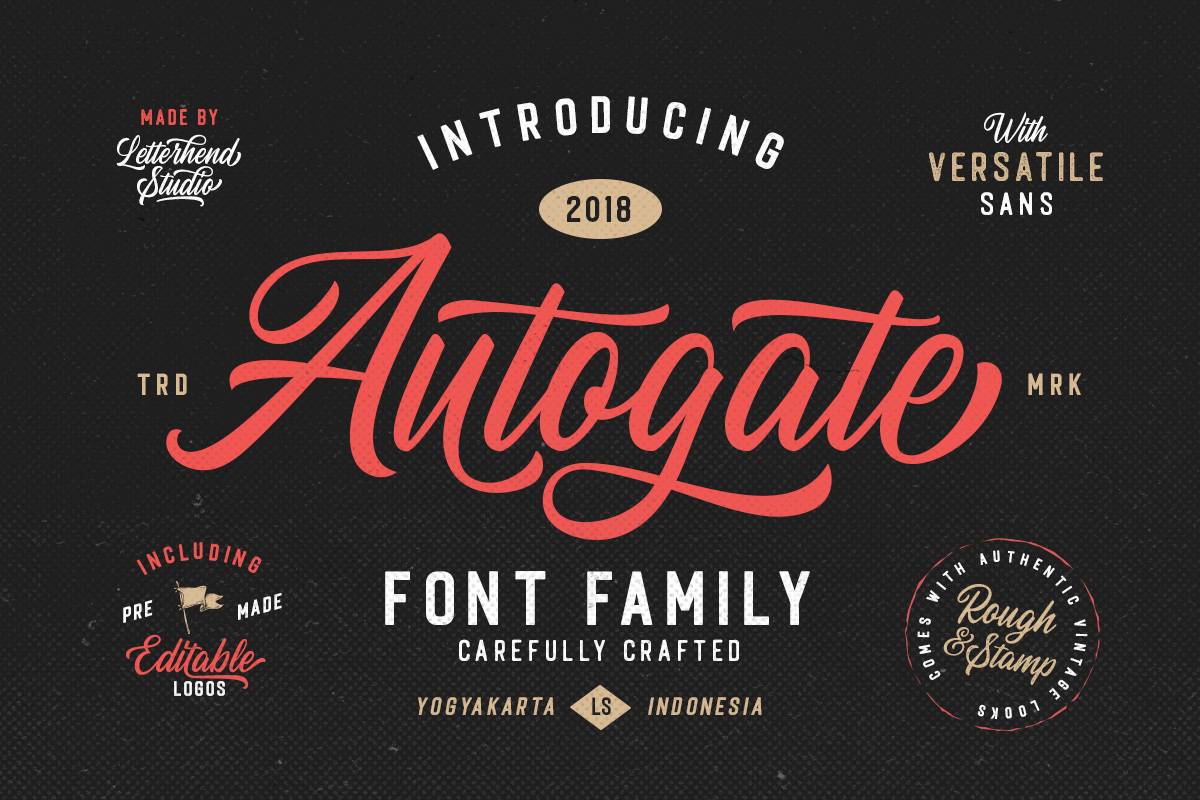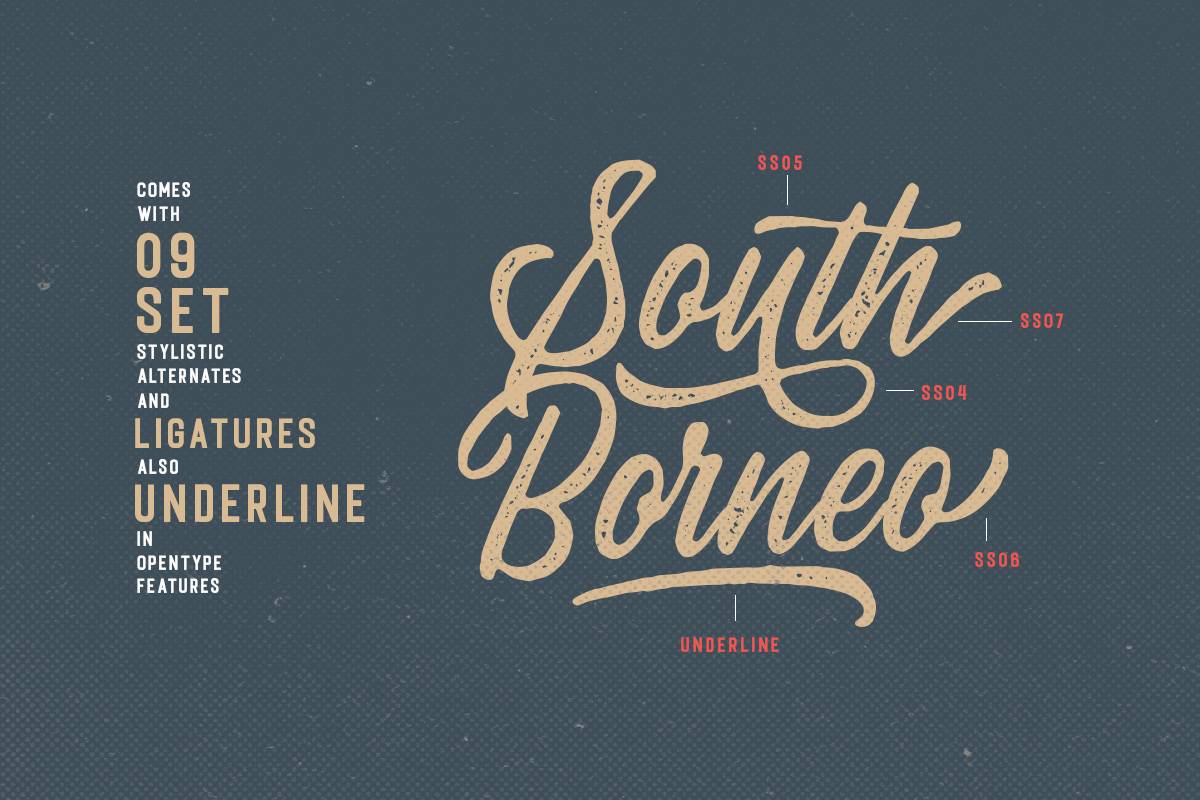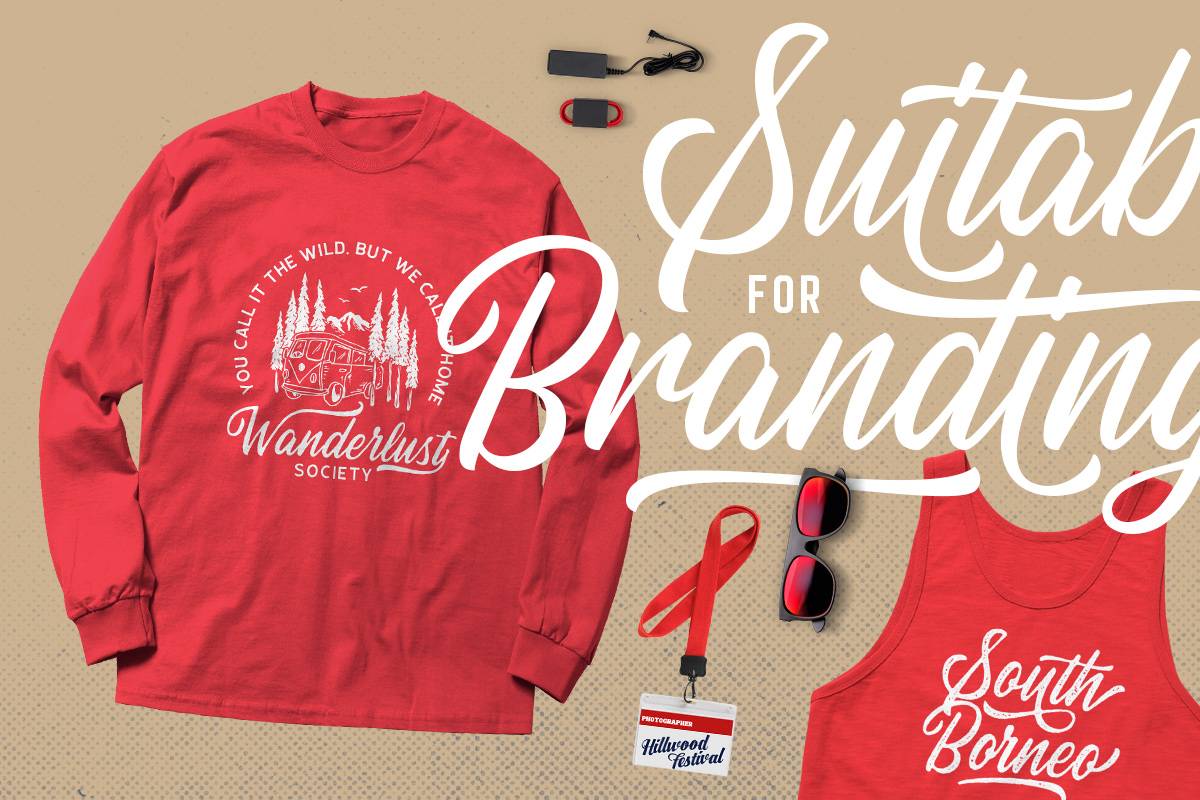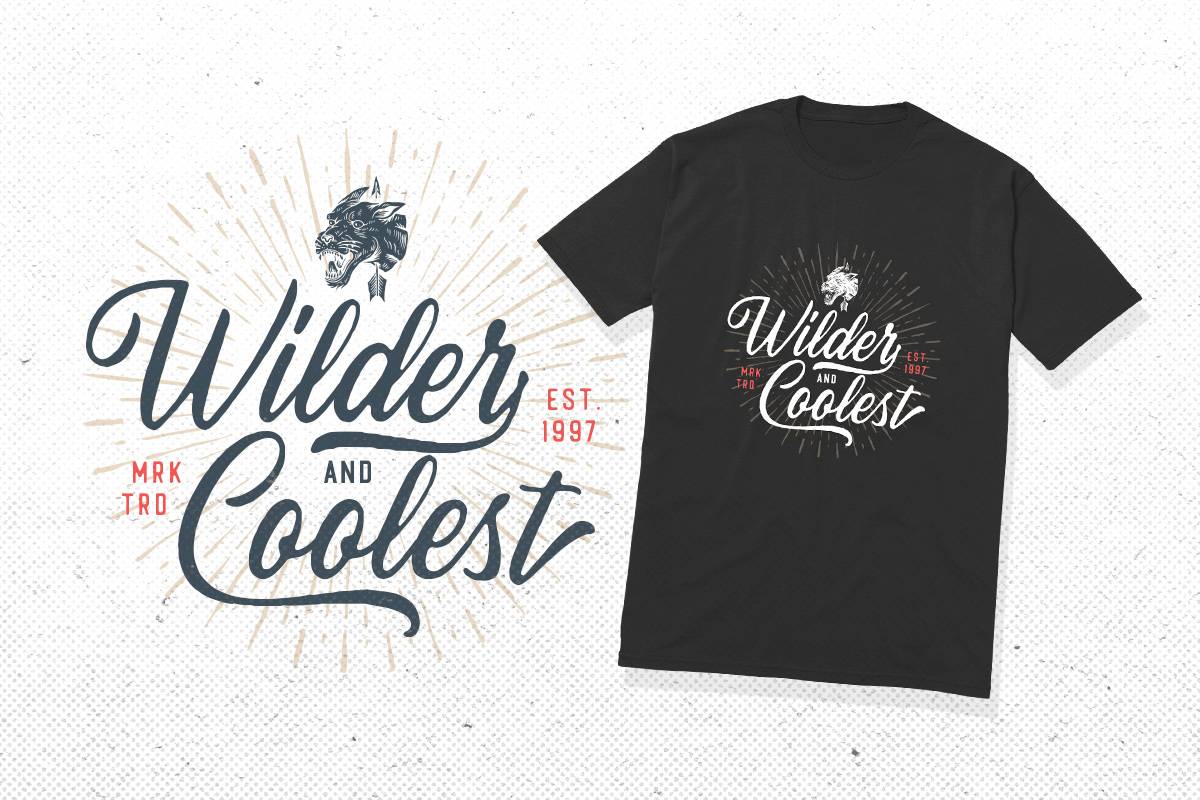
Autogate is a stylish script font with elegant, flowing letterforms that give it a sophisticated and classic feel. Its medium weight and moderate contrast create a smooth, readable design suitable for luxury branding, invitations, and decorative headlines. This font works beautifully where a refined, graceful touch is needed to convey elegance and sophistication.
Autogate Font
About Autogate Font
| Font family | Autogate Font |